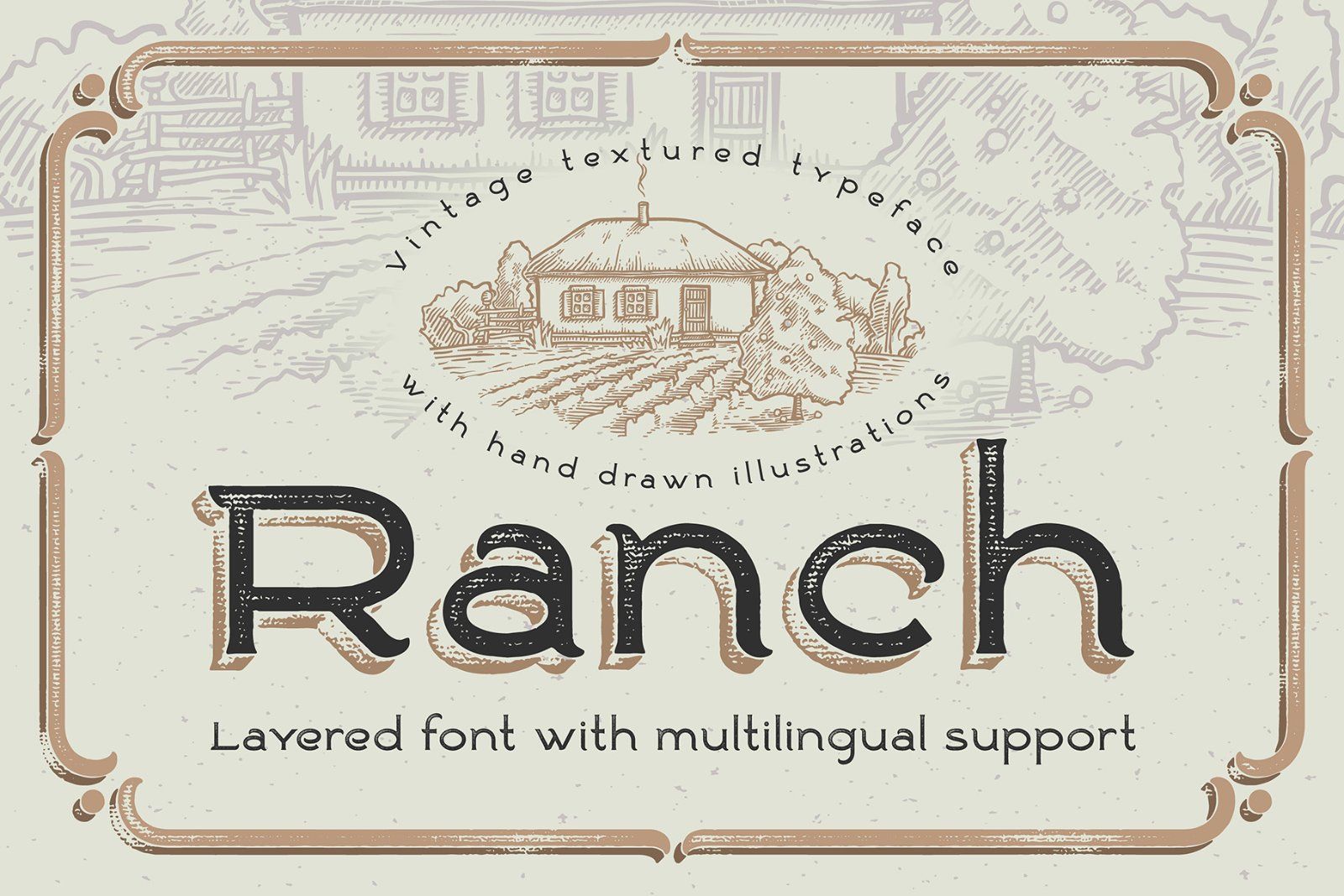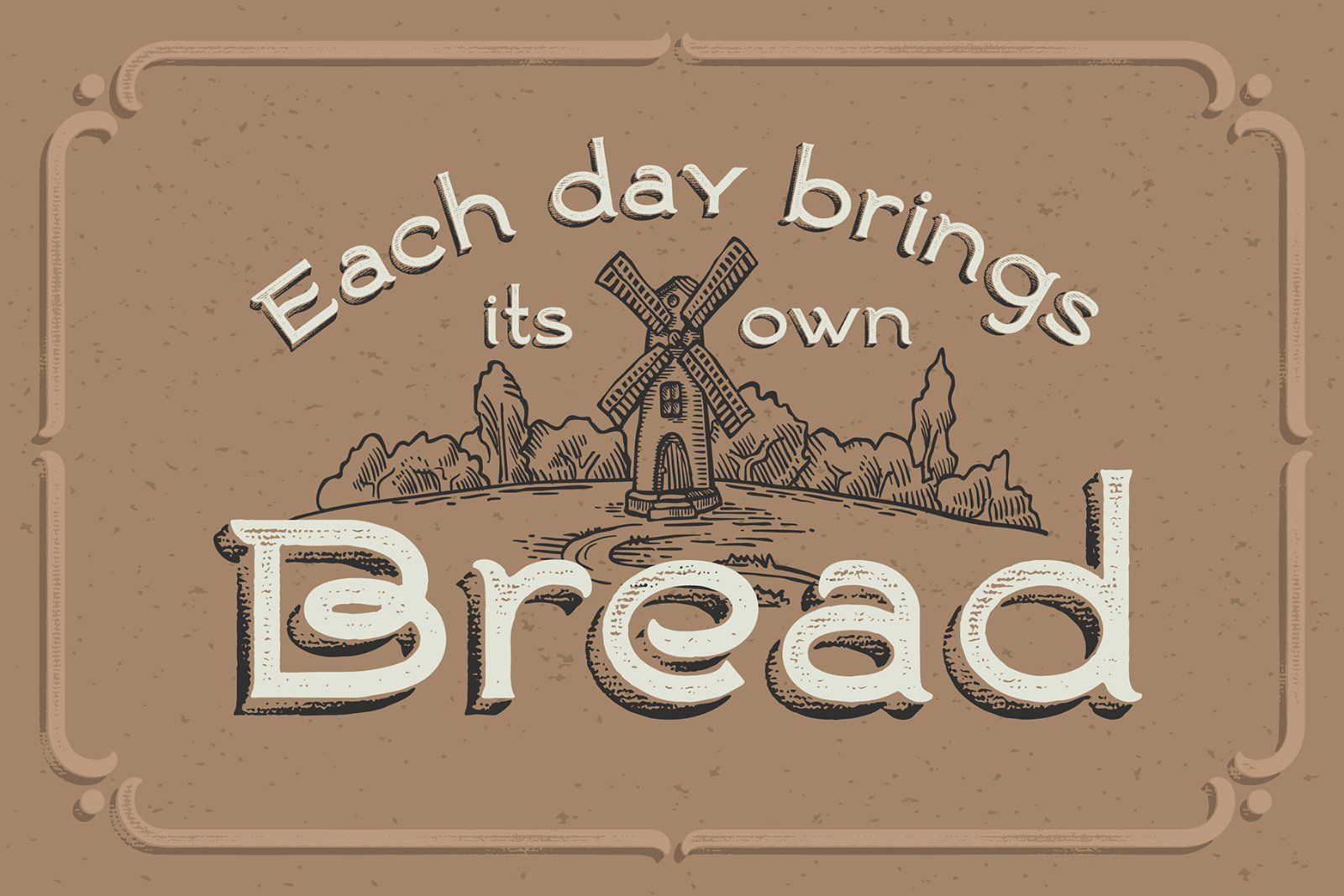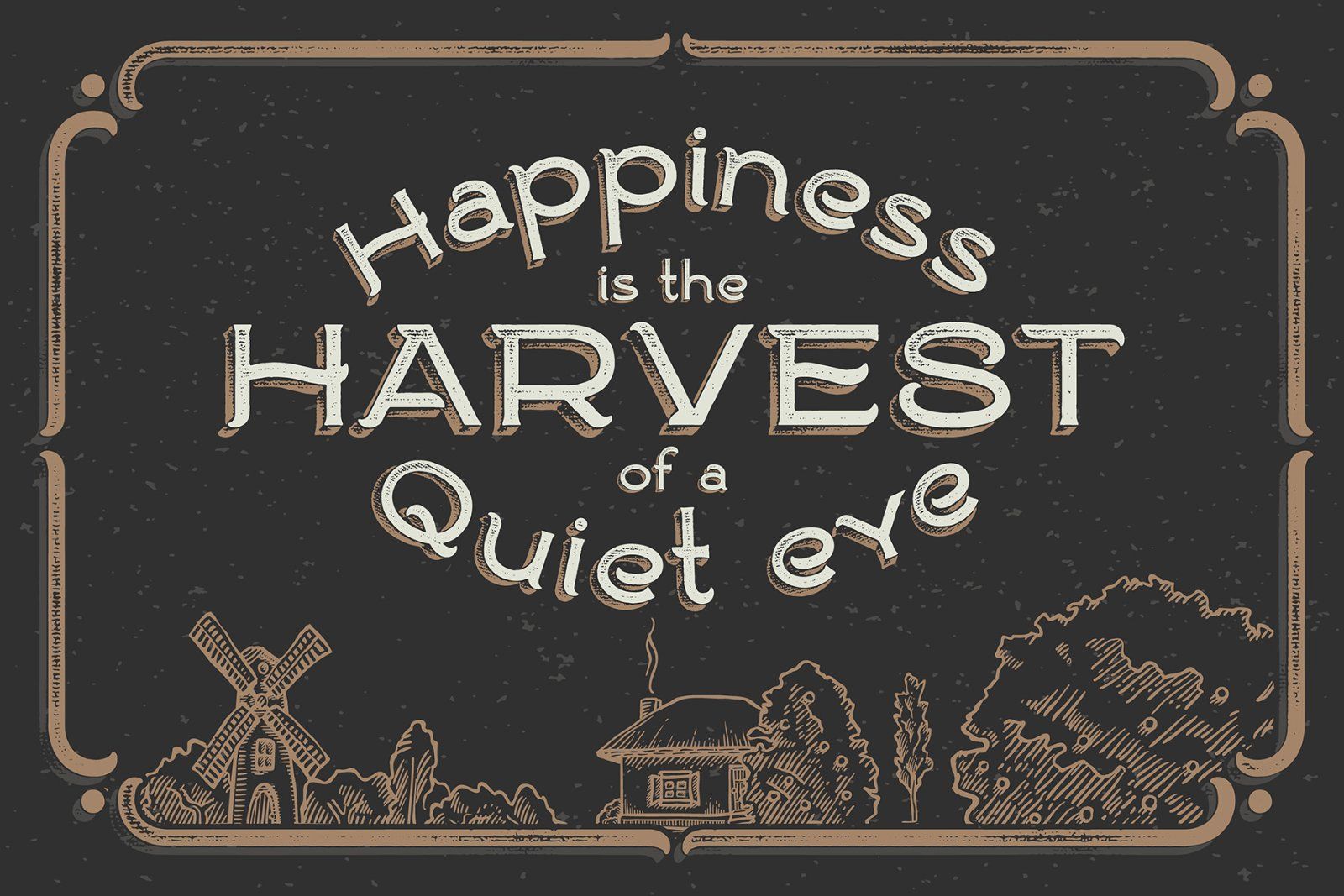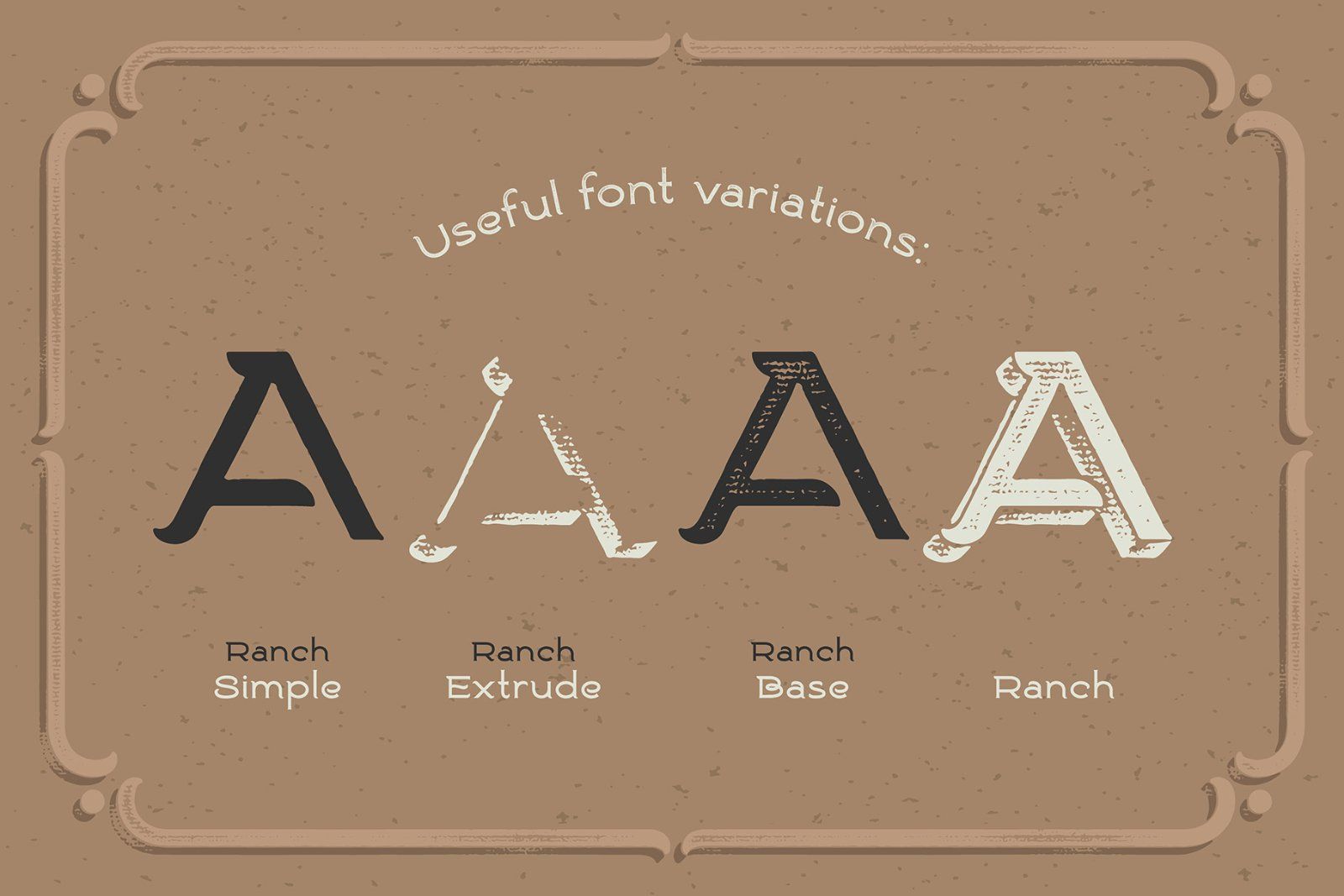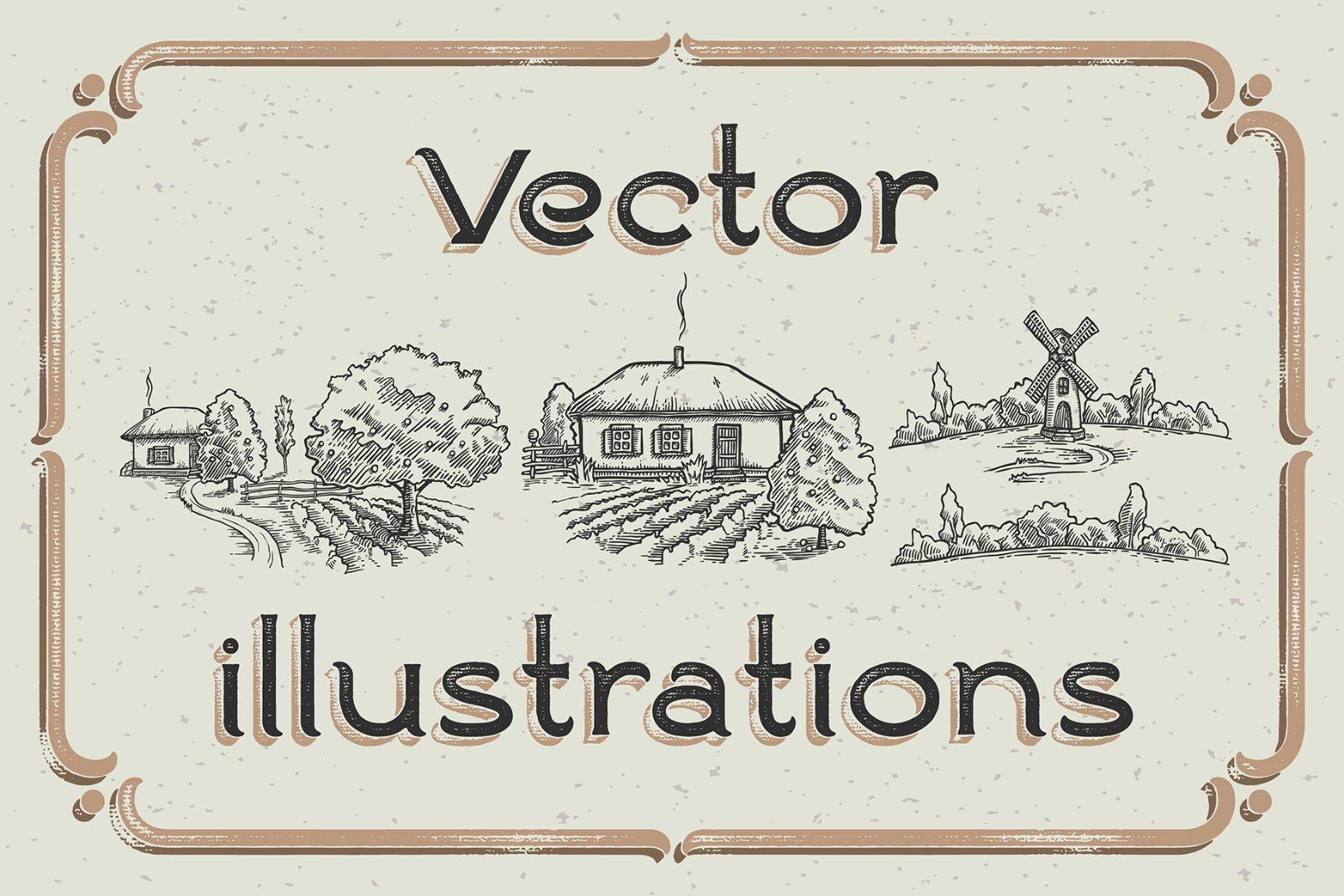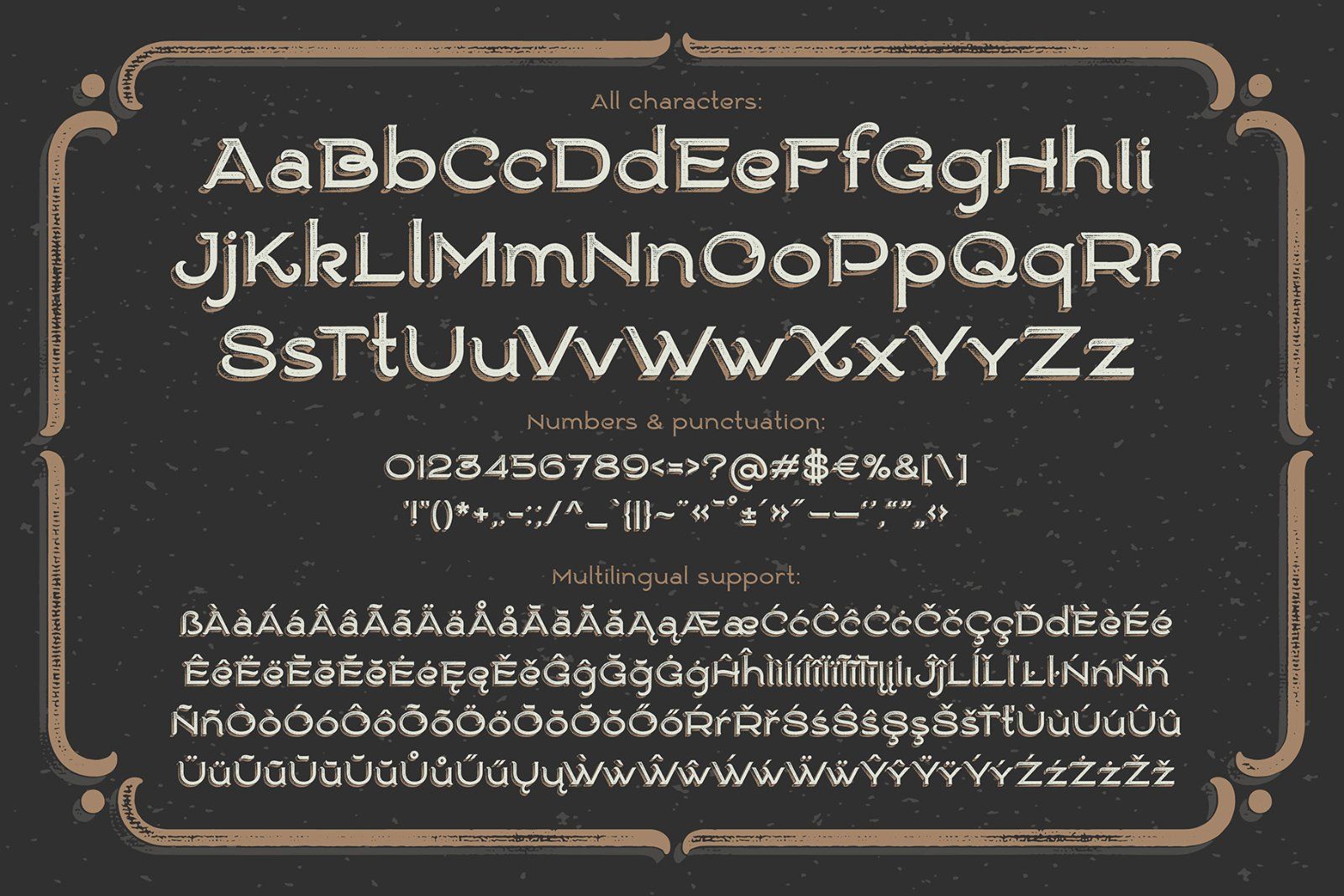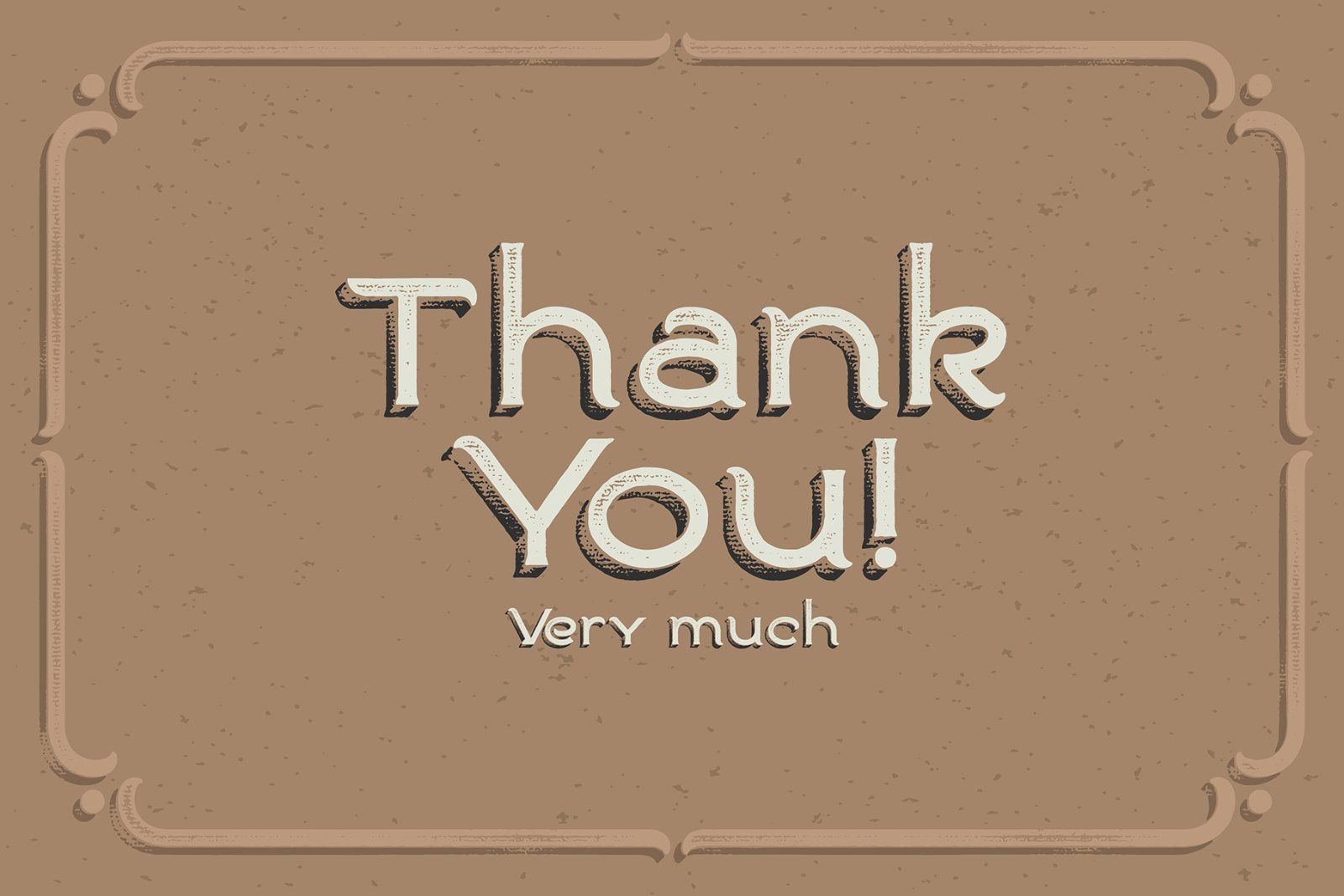
Hello! Presenting a vintage typeface named "Ranch" with layered textured effect. It consists of four font variations for easy recoloring and combining. Also, as a bonus, you will get a vector hand drawn illustrations of a countryside house, windmill and trees (5th screenshot). This font has a multilingual support, all available characters are shown on the 6th screenshot. Posters from 2nd & 3rd screenshots are also available in vector format.